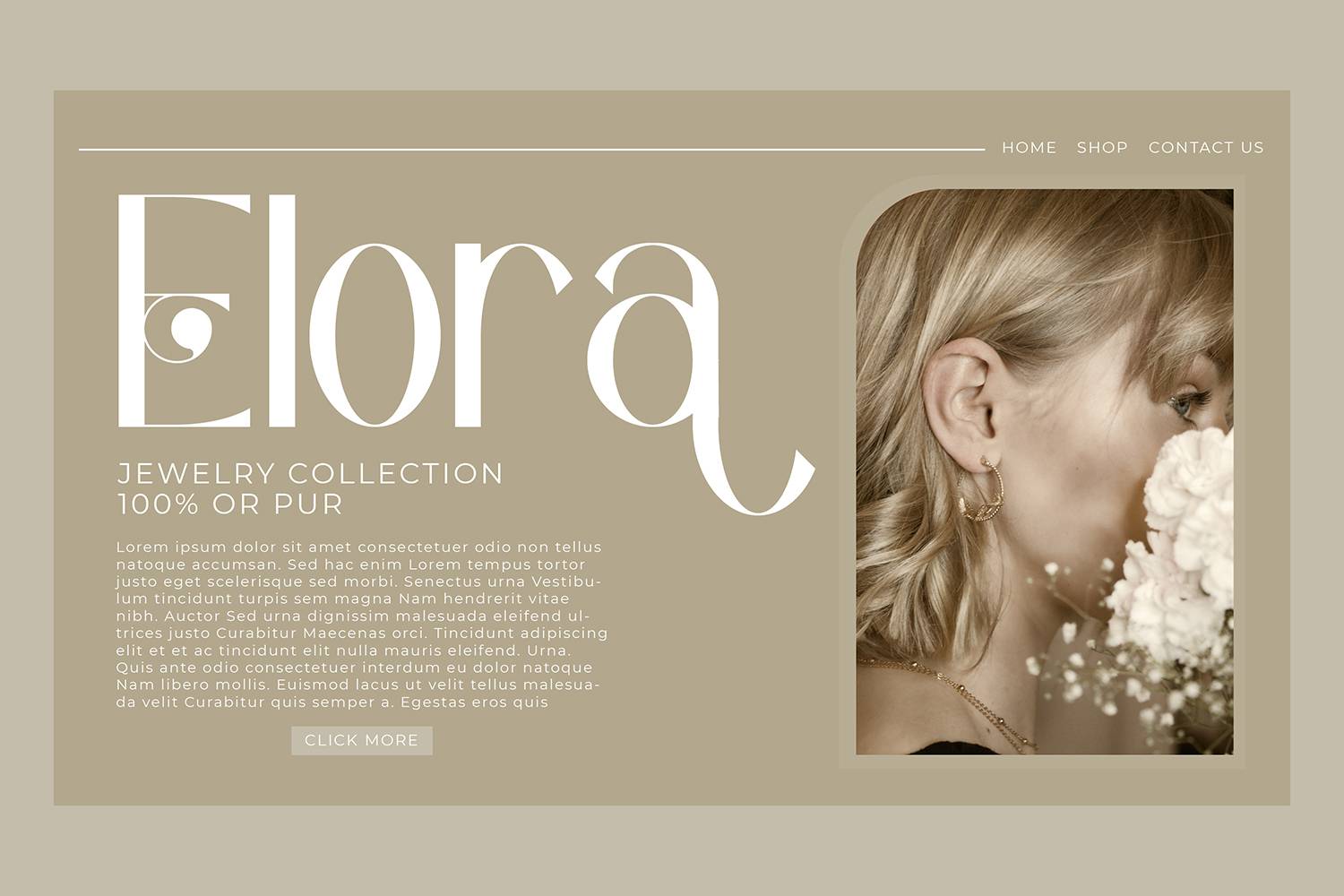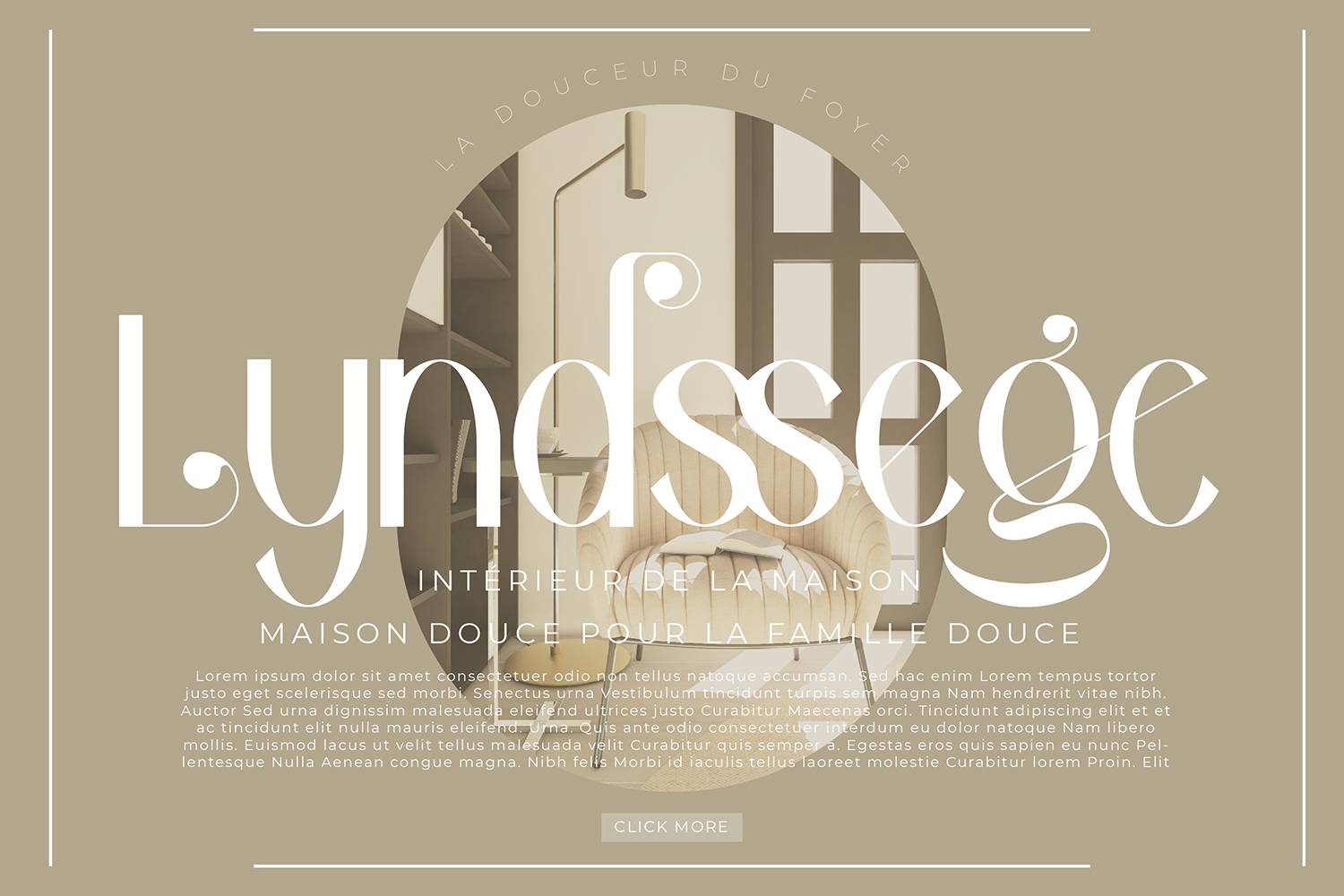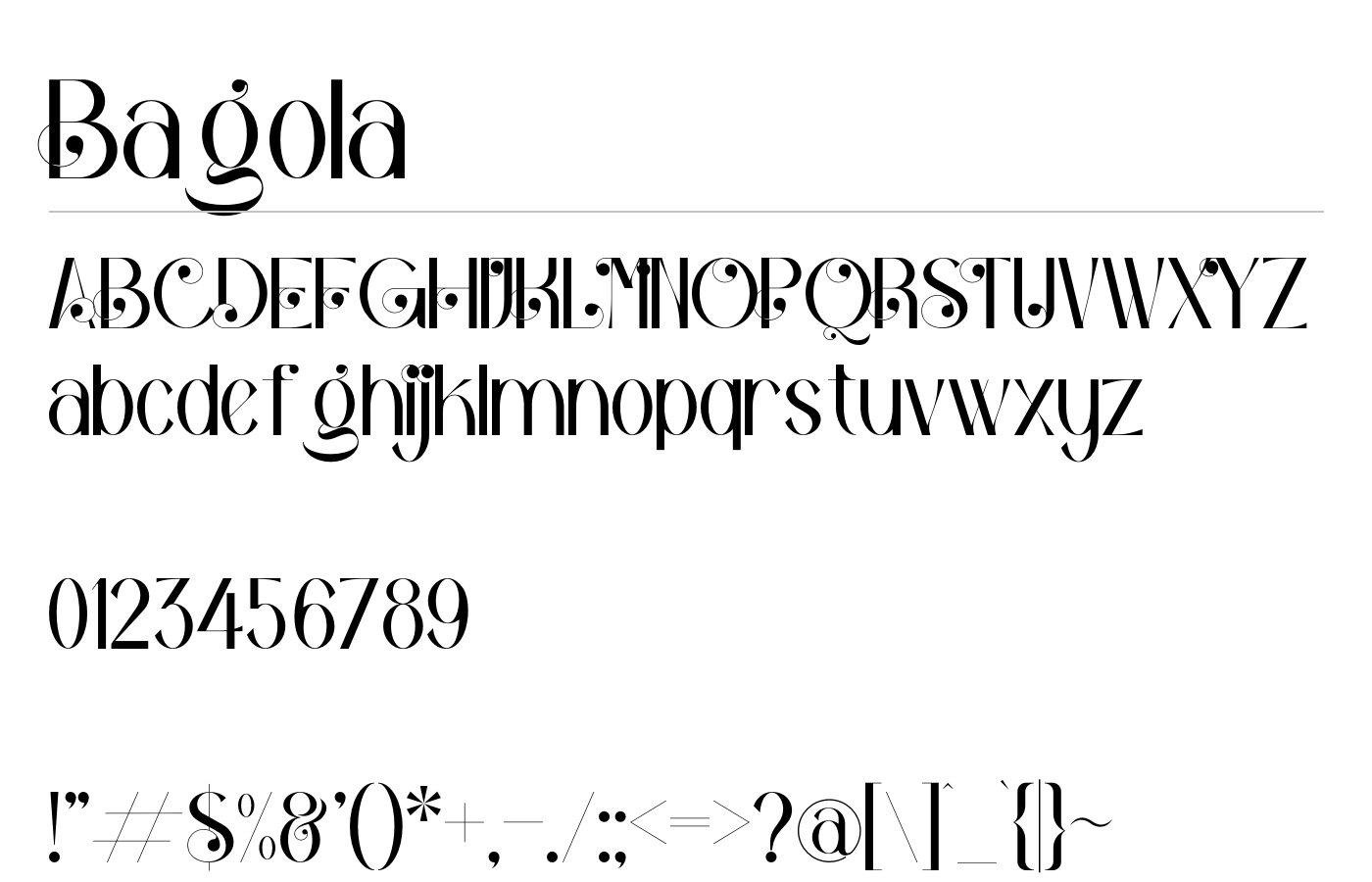
Bagola is a stylish serif font that blends modern elegance with playful flourishes, featuring high contrast strokes and unique swirl details on select characters. Its narrow width and tall x-height give it a refined yet lively appearance, making it perfect for fashion branding, editorial headlines, and luxurious packaging where a distinctive and artistic touch is desired. This font’s sophisticated personality shines through in designs that aim to stand out with flair and creativity.
Bagola Font
About Bagola Font